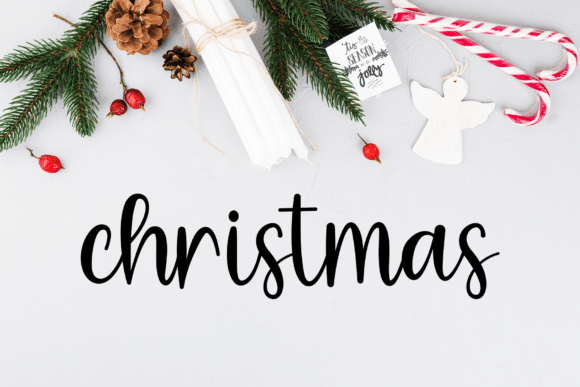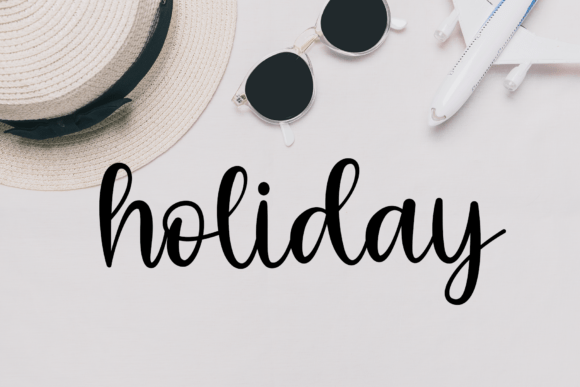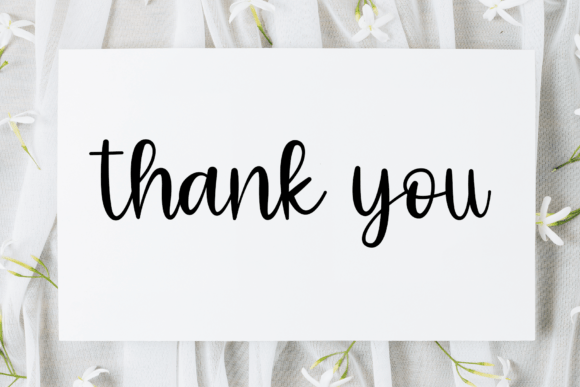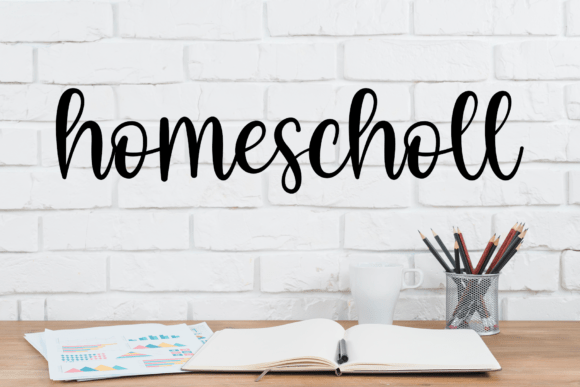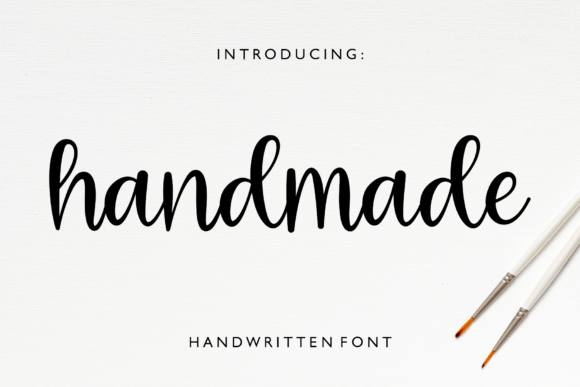
Embracing Authentic Craftsmanship: The Beauty of the Handmade Font
In the digital age, where uniformity and precision are often the norms, finding a way to infuse your projects with a personal, human touch can be a challenge. This is where the Handmade font comes into play, offering a refreshing alternative to the standard typefaces found in digital design. Embrace the beauty of authentic craftsmanship with this stunning script typeface, designed to bring an organic, artisan feel to your digital creations.
The Essence of Handmade: Capturing Fluid Motion and Elegance
The Handmade font is inspired by the fluid motion of a brush on canvas, capturing the essence of traditional craftsmanship in a digital format. Its clean yet soulful aesthetic feels both modern and timeless, making it an ideal choice for designers looking to add a touch of elegance and sophistication to their work. The organic weight and elegant curves of this typeface evoke a sense of approachability and warmth, perfect for branding projects that require an artisan feel.
Versatility in Design: From Wedding Invitations to Boutique Packaging
One of the standout features of the Handmade font is its versatility. Whether you’re designing wedding invitations, social media quotes, boutique packaging, or any other project that requires a personal touch, this font breathes life into every character. Its smooth lines ensure high legibility even at smaller sizes, making it suitable for body text, while its bold presence makes it perfect for headers and hero images.
Pairing and Typography: Creating a Sophisticated Editorial Look
To truly harness the potential of the Handmade font, pairing it with complementary typefaces can elevate your design to new heights. Pairing it with a minimalist sans-serif font creates a sophisticated editorial look that balances elegance with readability. This combination is particularly effective in editorial design, such as magazines, blogs, and digital publications, where clarity and style are paramount.
As a Primary Logotype: Elevating Creative Businesses
Alternatively, the Handmade font can stand alone as a primary logotype for creative businesses, offering a distinctive and memorable brand identity. Its unique character and artisan feel make it an excellent choice for businesses that value authenticity and craftsmanship, such as boutique stores, artisanal brands, and creative agencies.
Beyond Typography: A Design Tool for Emotional Connection
The Handmade font is more than just a set of characters; it’s a design tool that bridges the gap between digital precision and human touch. It allows designers to create emotional connections with their audience through typography, evoking feelings of warmth, authenticity, and craftsmanship. In a world where digital designs often lack a personal touch, the Handmade font offers a way to stand out and connect with your audience on a deeper level.
Why Choose the Handmade Font?
- Unique Aesthetic: Offers a clean yet soulful aesthetic that feels both modern and timeless.
- Versatility: Suitable for a wide range of design projects, from wedding invitations to boutique packaging.
- Legibility: Smooth lines ensure high legibility even at smaller sizes.
- Emotional Connection: Enables designers to create emotional connections with their audience through its artisan feel.
- Pairing Flexibility: Can be paired with minimalist sans-serifs for a sophisticated look or used alone for a bold statement.
| Author | Fania Studio |
The Handmade font is a powerful tool for designers and crafters looking to infuse their digital projects with a personal, human touch. Its unique blend of elegance, versatility, and emotional connection makes it an exceptional choice for a wide range of design applications. Whether you’re aiming to create a sophisticated editorial look, a bold brand statement, or simply add a touch of authenticity to your design, the Handmade font is sure to exceed your expectations. Embrace the beauty of authentic craftsmanship and let the Handmade font bring a soulful aesthetic to your digital creations.